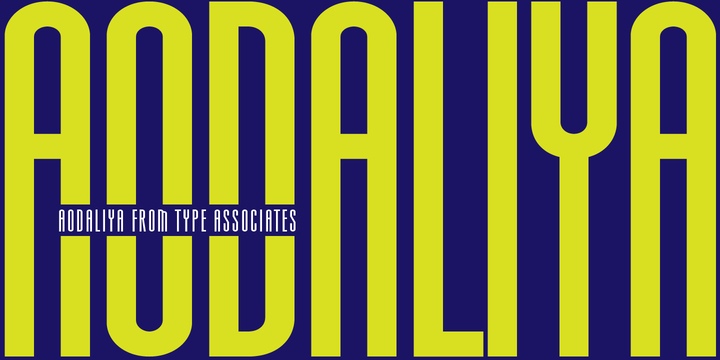
Aodaliya Font
Aodaliya Font is perfect for contemporary branding, modern corporate identities, innovative tech startups, clean product packaging, progressive magazines, architectural firms, design studios, systematic signage, digital interfaces, professional presentations, minimalist advertising campaigns, and forward-thinking editorial design.
What makes Aodaliya Font exciting is its modern sophistication that captures the essence of contemporary design thinking through clean, balanced letterforms that project confidence and innovation while maintaining exceptional clarity and professional appeal. This distinguished typeface represents the evolution of modern typography, combining geometric precision with subtle humanist characteristics that create the perfect foundation for progressive organizations and forward-thinking businesses. The font's systematic approach and technical excellence make it ideal for companies that need to communicate competence and reliability while projecting contemporary relevance and design consciousness. Its versatile personality ensures consistent brand expression across diverse applications while providing the clarity essential for complex modern communications and international business environments.
The Aodaliya Font family includes thin, light, regular, medium, semibold, bold, and black weights, each available with corresponding italic styles. The comprehensive family features contemporary alternates, systematic ligatures, and modern design elements that enhance the font's progressive character and provide designers with complete typography solutions for comprehensive brand systems and complex information hierarchies.
Whether you're developing modern brand identities, creating contemporary marketing materials, or designing progressive communications, Aodaliya Font Free Download delivers the systematic sophistication your forward-thinking projects require. This premium typeface excels in environments where clarity and modern aesthetics are fundamental to organizational success and brand differentiation in competitive global markets. The font's contemporary qualities work magnificently across digital platforms and print applications, making it an indispensable asset for designers serving progressive and technology-focused industries worldwide. Modern companies and design-conscious organizations choose this font for its ability to communicate innovation while maintaining perfect readability and professional credibility across diverse cultural contexts. The comprehensive character set supports multiple languages and includes specialized contemporary symbols, expanding its versatility for international modern applications and multilingual progressive communications. Professional designers appreciate its systematic approach to contemporary design and consistent performance across all weights and global applications. When you implement this exceptional typeface in your modern communications, you're selecting a typography solution that celebrates contemporary design excellence and systematic thinking, ensuring your brand communicates authority, innovation, and progressive vision while maintaining the contemporary credibility essential for success in competitive modern markets and design-conscious industries that value both functional excellence and aesthetic sophistication in their organizational communications and international brand positioning strategies.